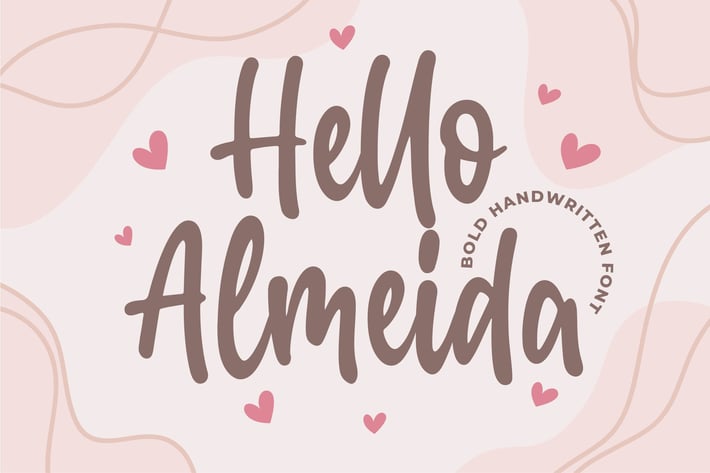
Hello Almeida a Bold Handwritten Font
Introducing of our new product the name is Hello Almeida a Bold Handwritten Font. Hello Almeida inspired by modern calligraphy style this font is a fun theme very good for display, tshirt design, craft, quote sign, logotype and etc